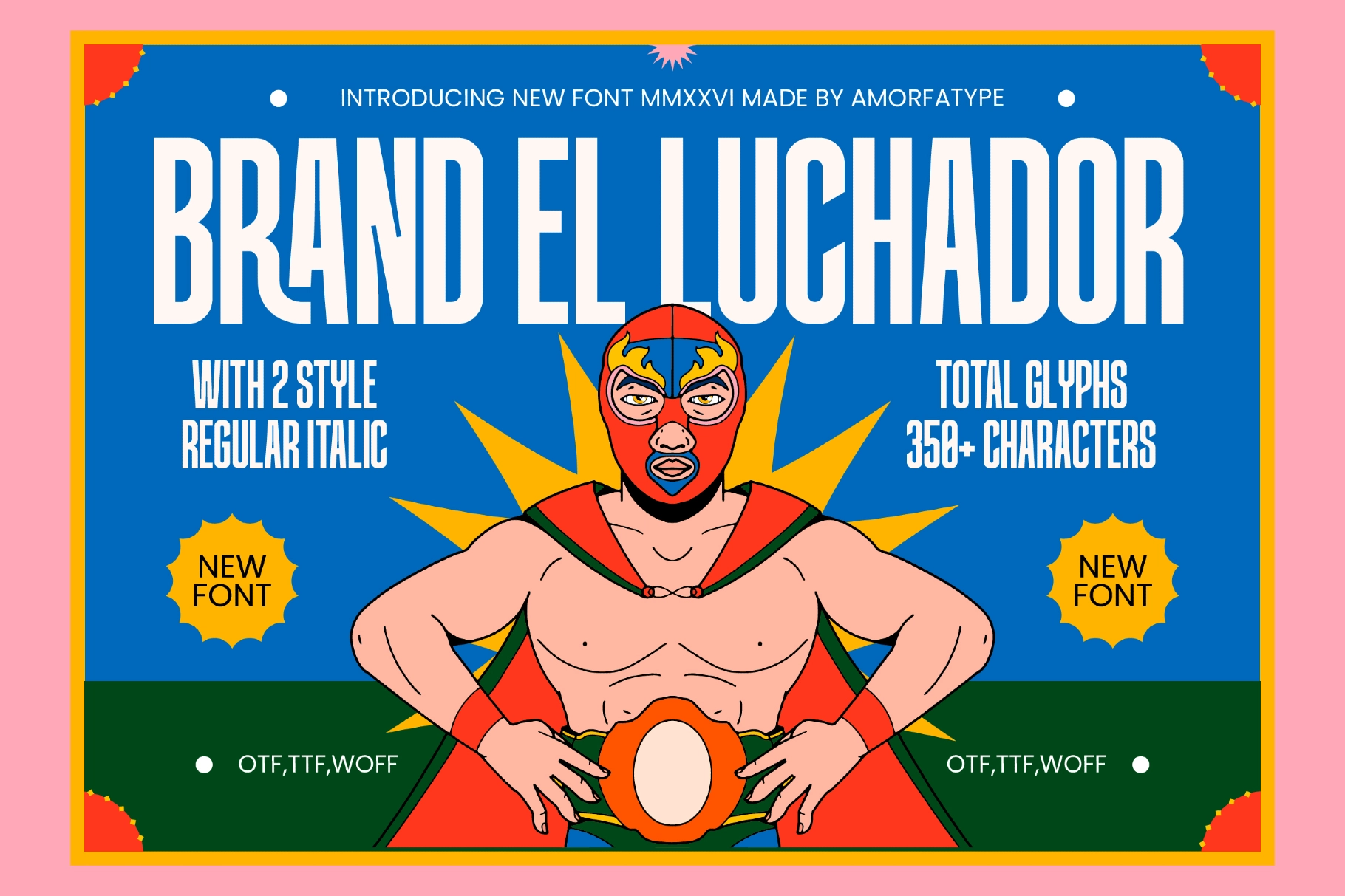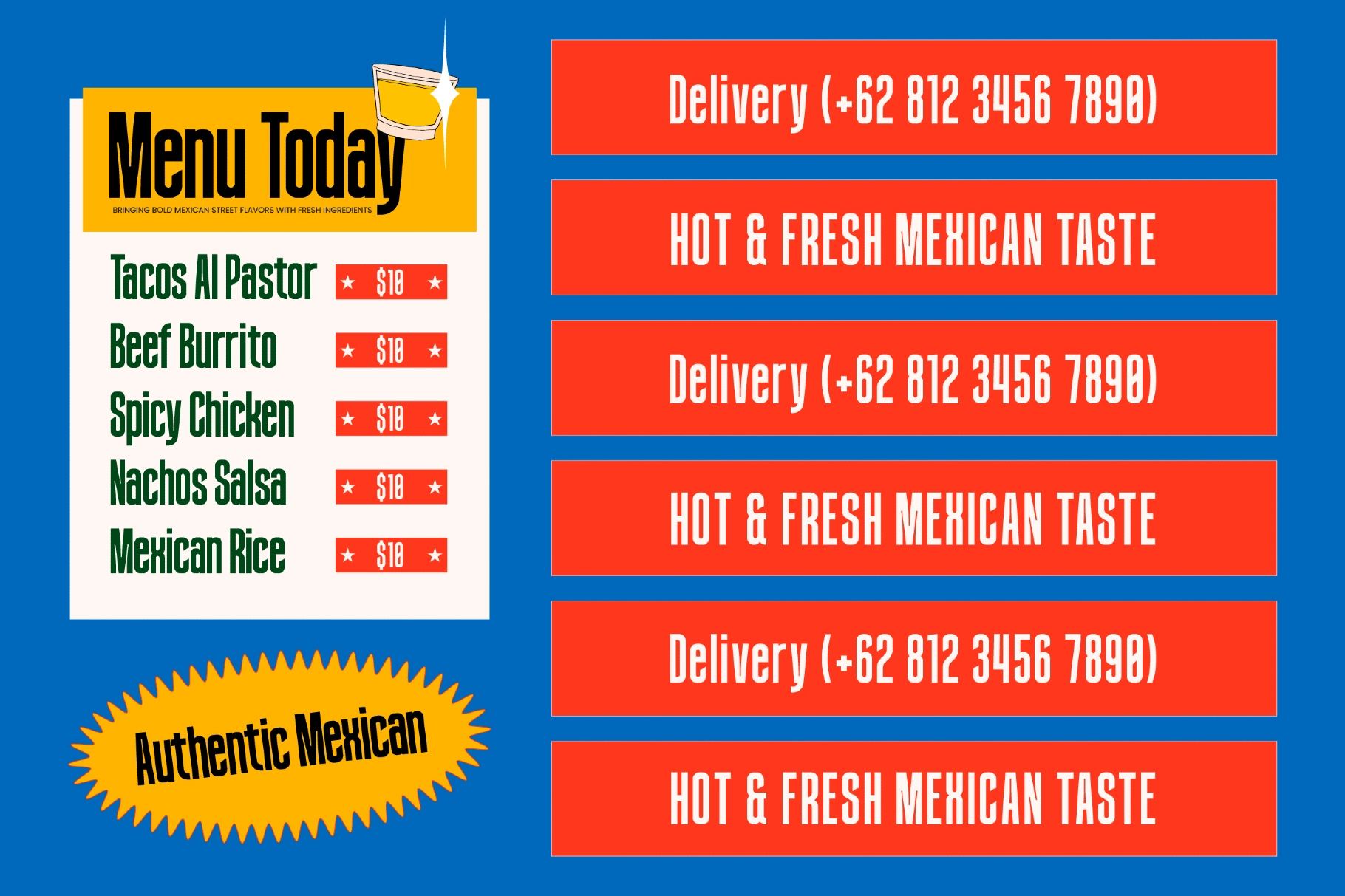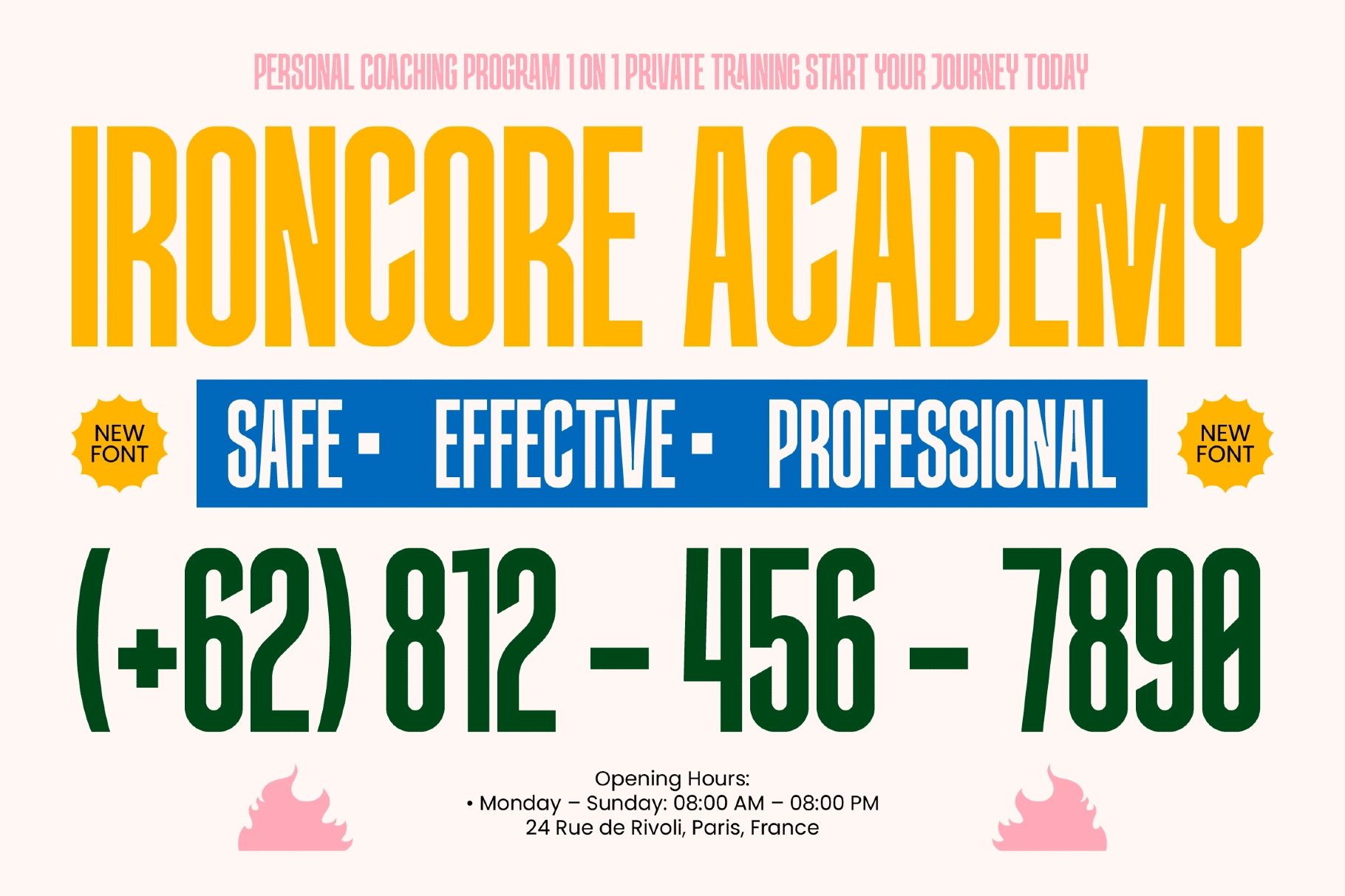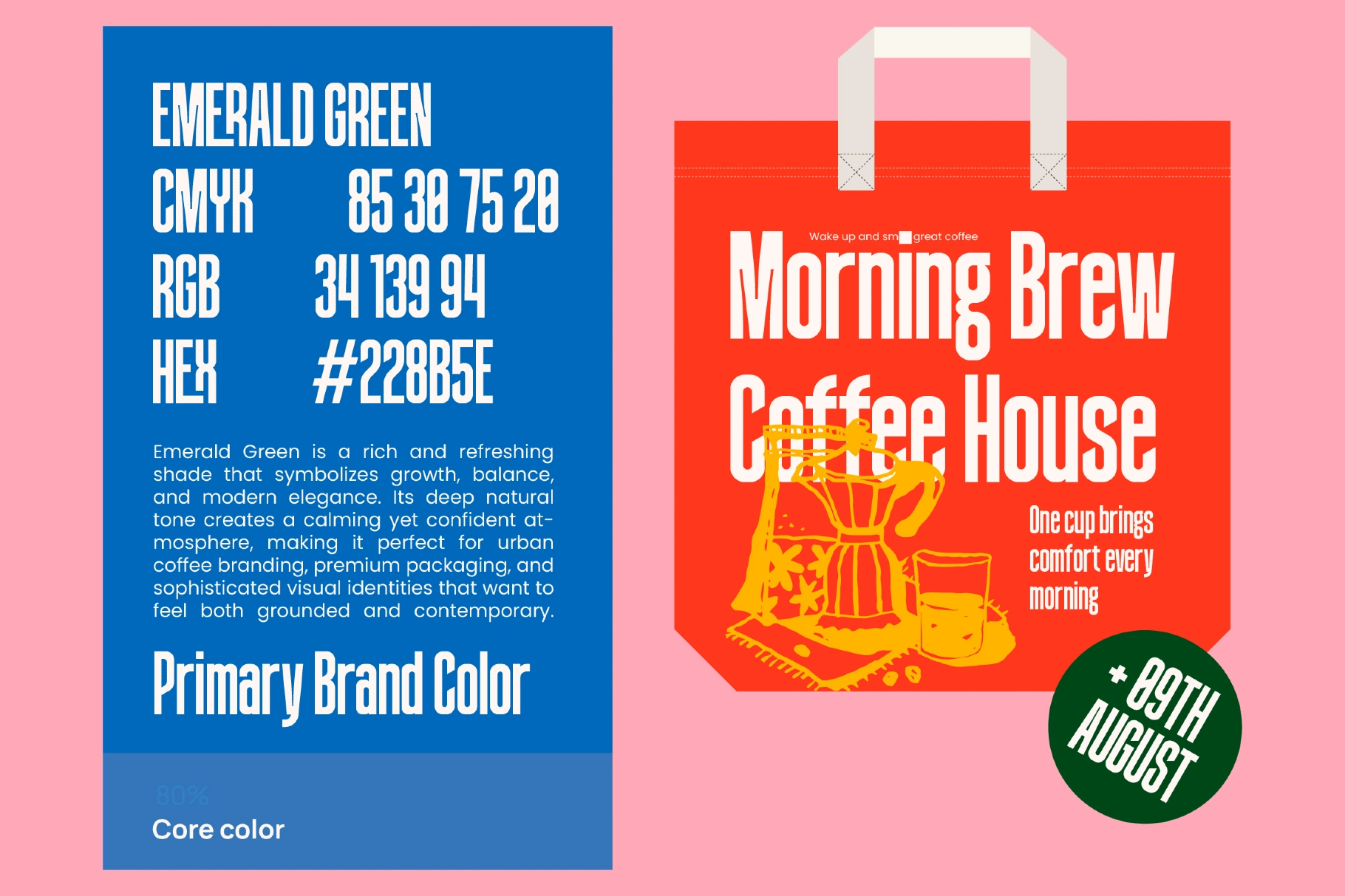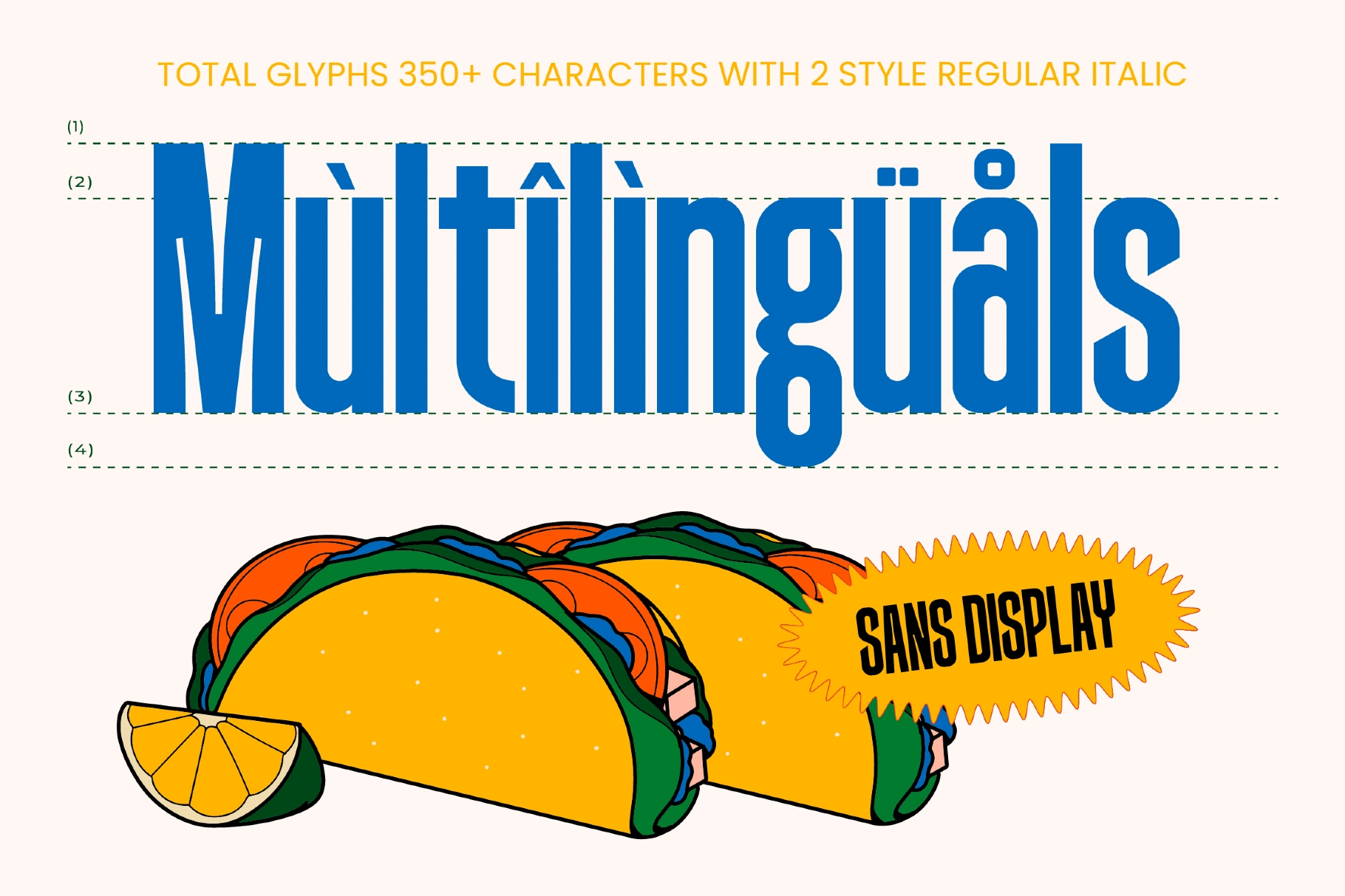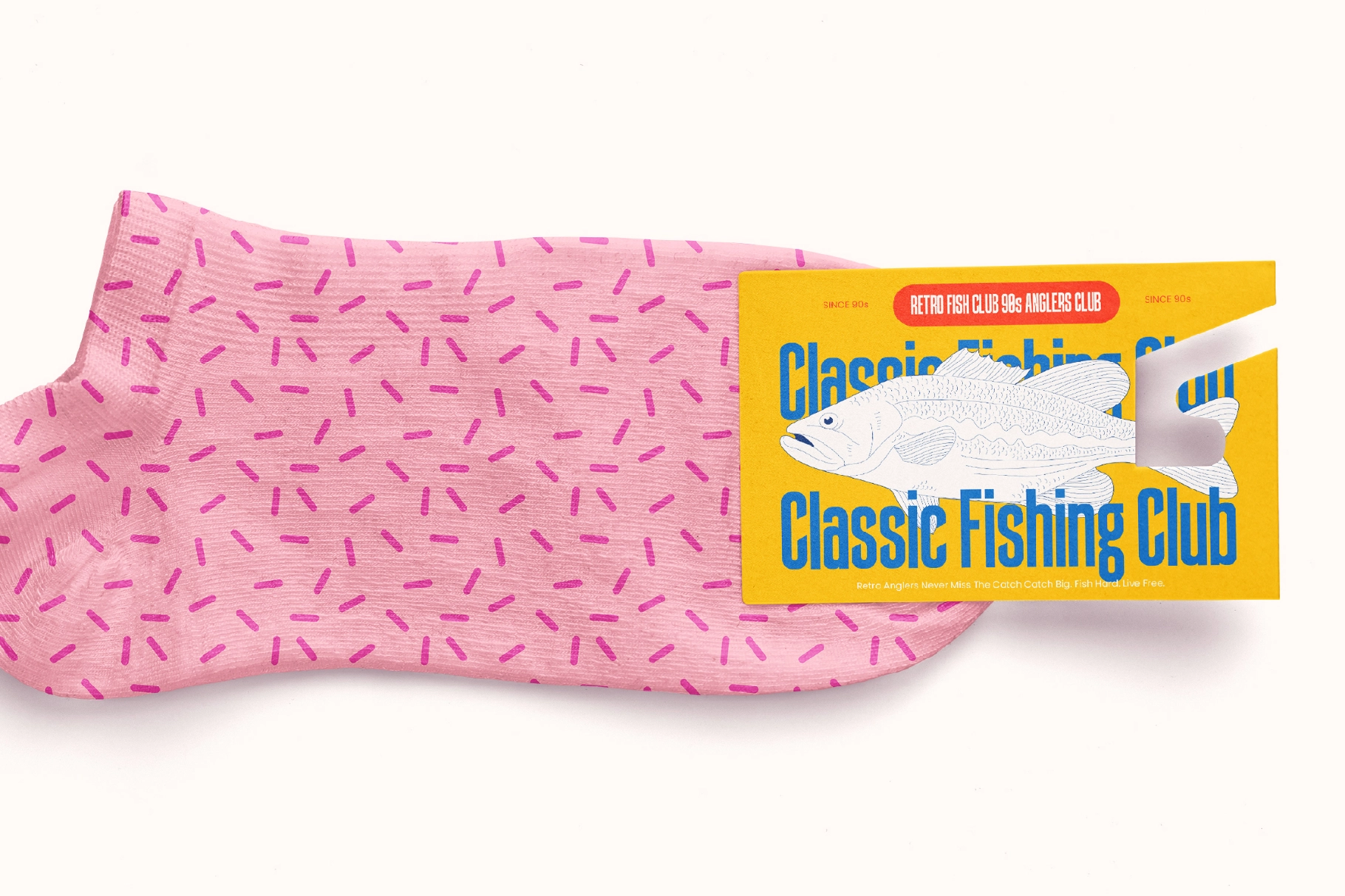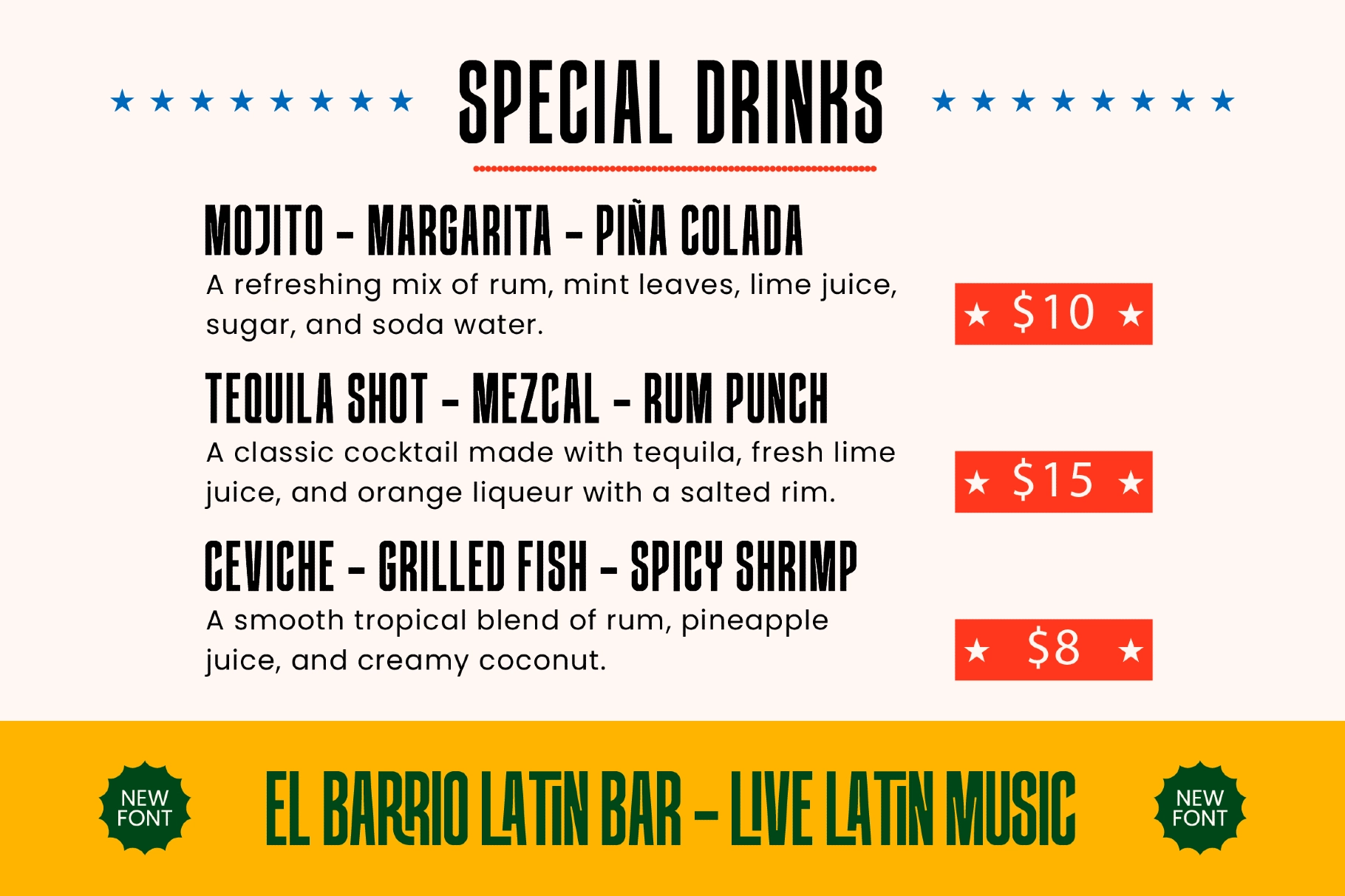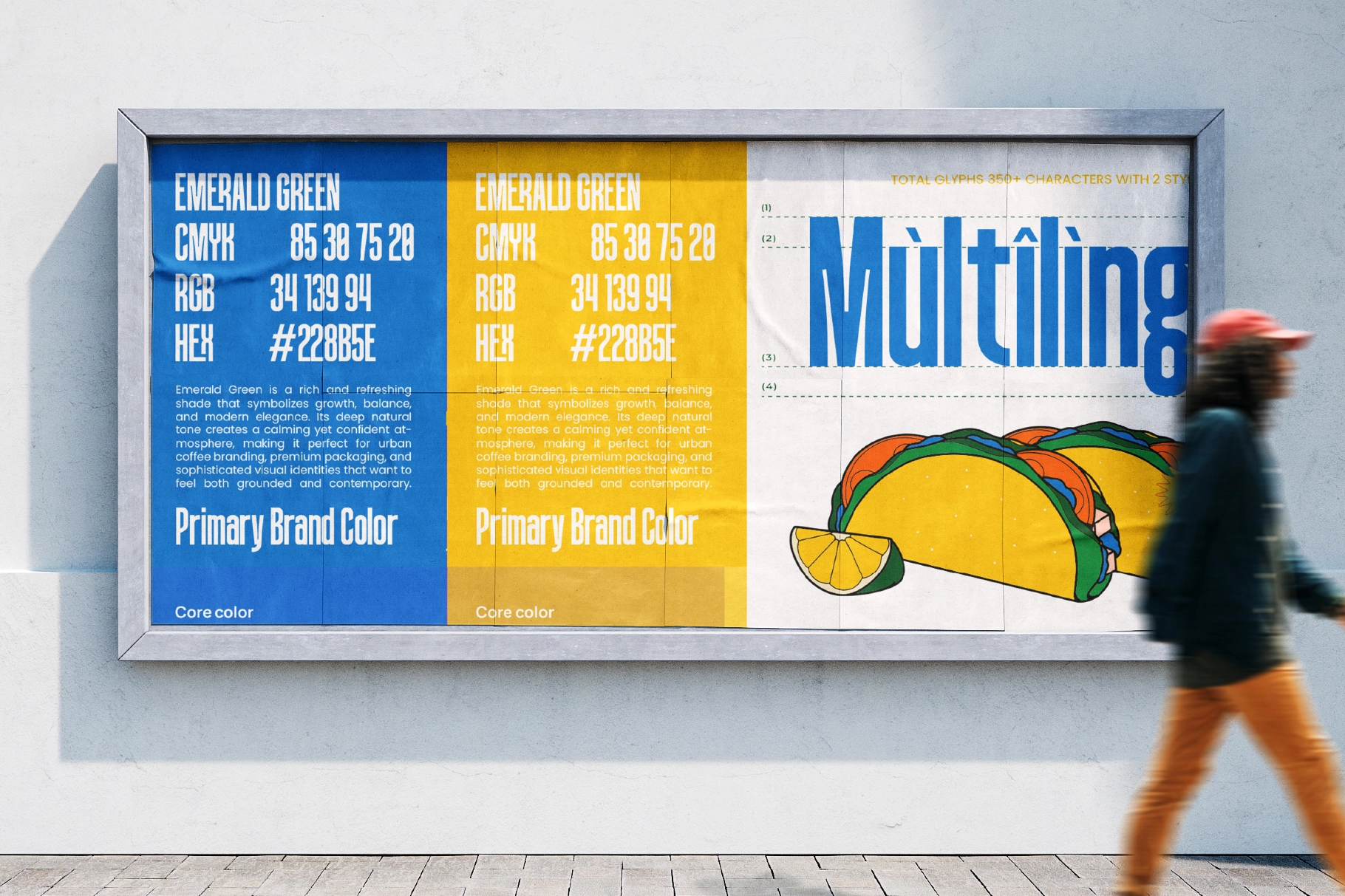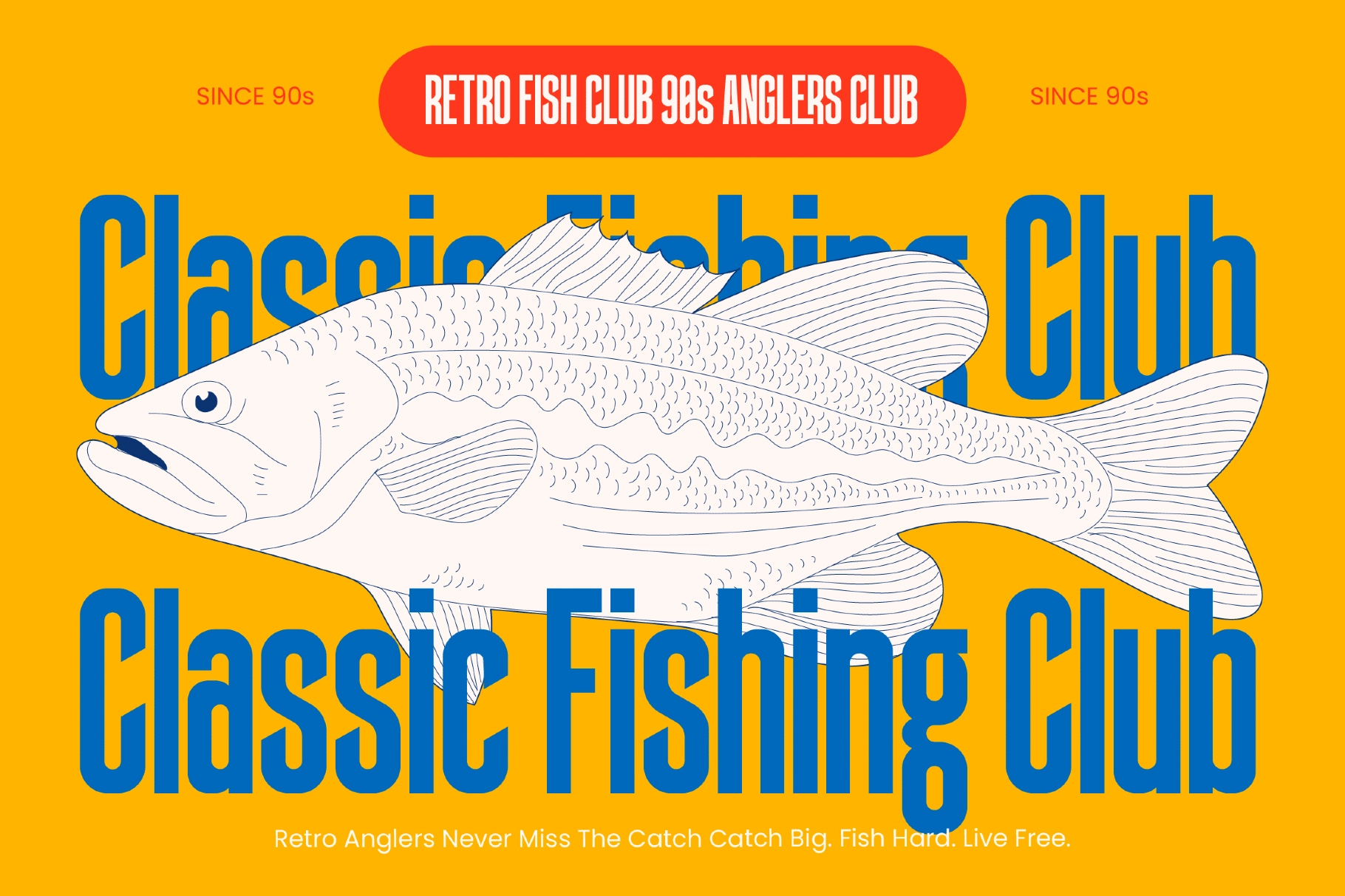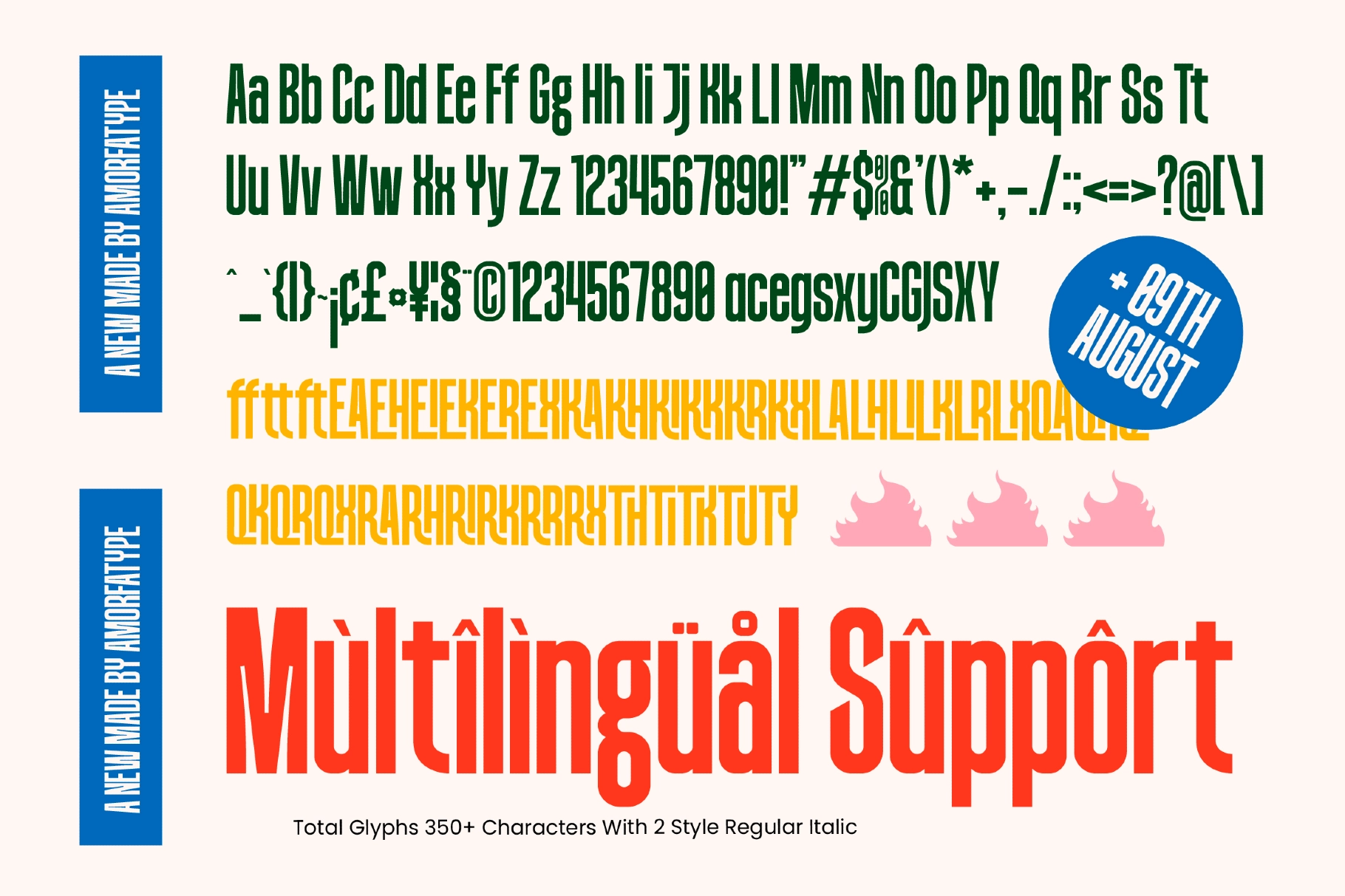
Brandel Luchador - Condensed Sans Font
A tall condensed sans with sharp vertical pull, compact spacing, and poster-grade volume. Its condensed structure gives every word a loud display presence, made for layouts that need punch, rhythm, and a bit of street-corner drama.
Brandel Luchador brings a lively lucha poster attitude into menus, packaging, and headline systems without losing clarity. Use it for taco shop branding, bar menus, festival posters, sports graphics, food truck signage, coffee packaging, editorial titles, merch prints, event flyers, social media banners, logo marks, and more.
• 2 styles: Regular, Italic
• 383 total glyphs
• 40 stylistic alternates
• 13 ligatures